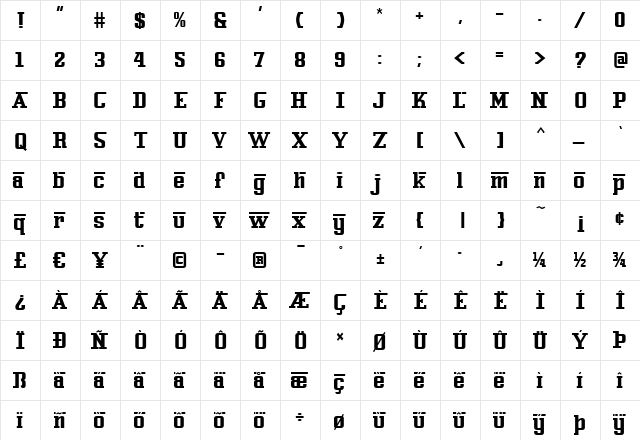
Ferro Rosso Regular
Design Context for Ferro Rosso Typeface
Ferro Rosso offers clean, dependable letterforms without strong stylistic allegiance, making it a practical choice for designers who need flexibility.